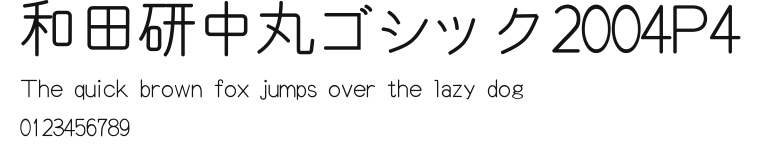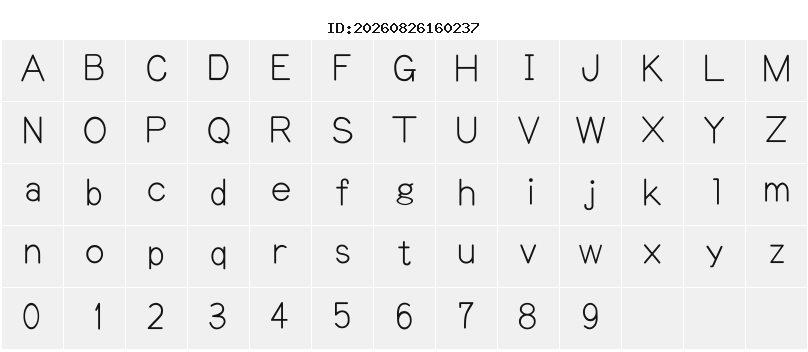
和田研中丸ゴシック2004P4 Preview
• Font Name: 和田研中丸ゴシック2004P4
• Designer: WadaLab, RareEarth
About 和田研中丸ゴシック2004P4.ttf
和田研中丸ゴシック2004P4.ttf is a modern, elegant sans-serif font designed for ultimate readability and visual harmony. Perfect for branding, headlines, web design, and print materials.